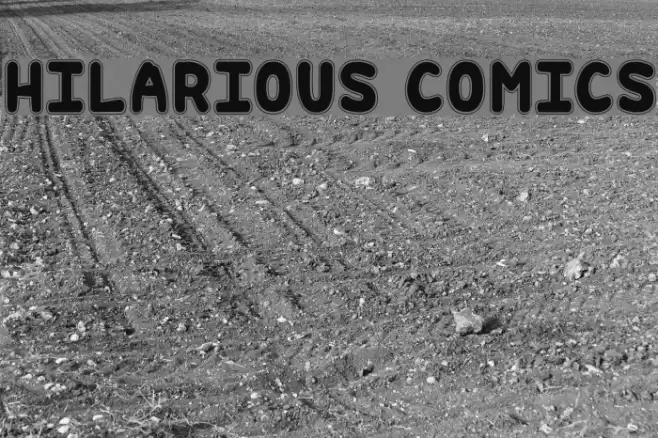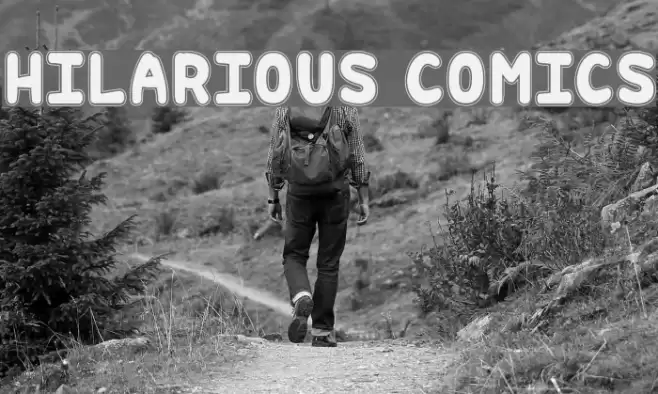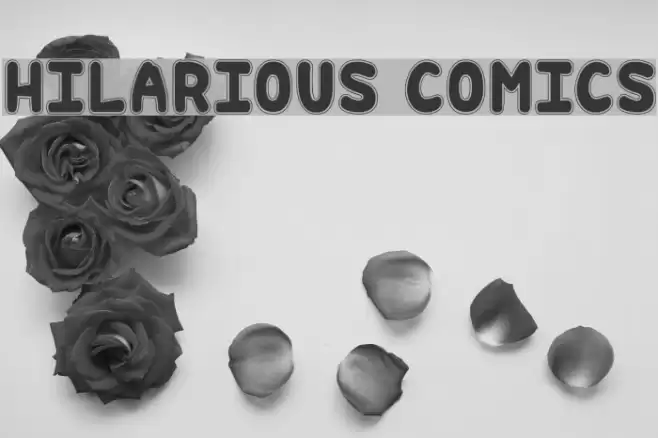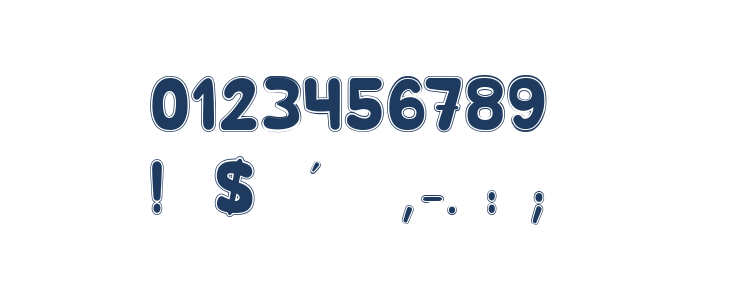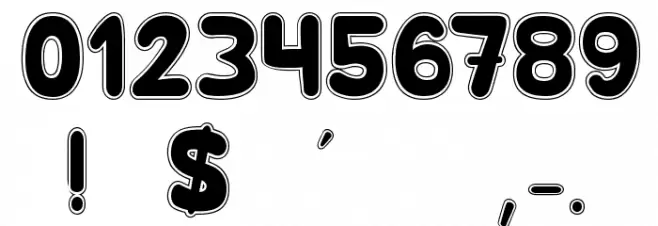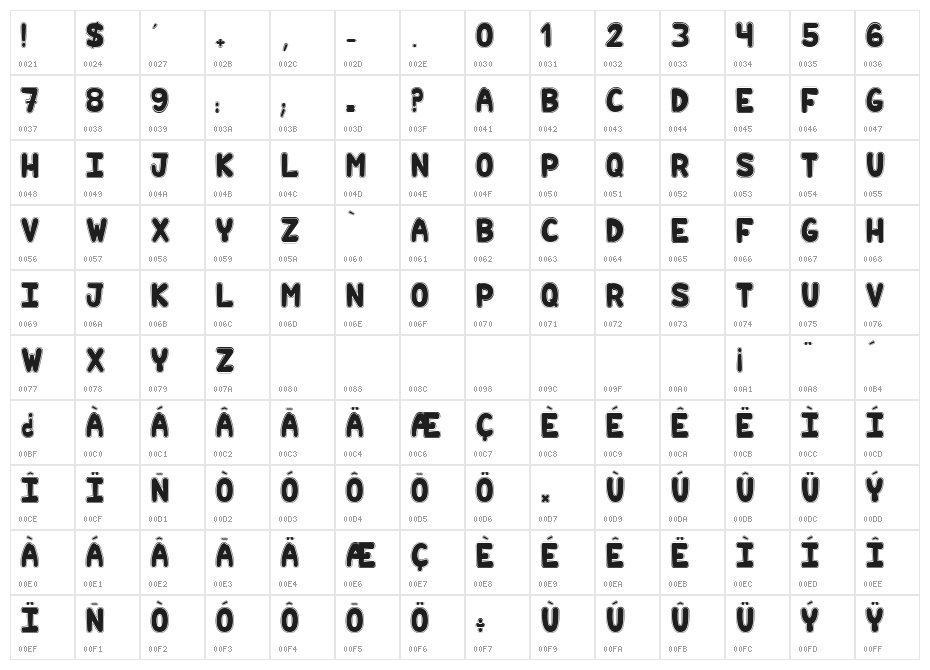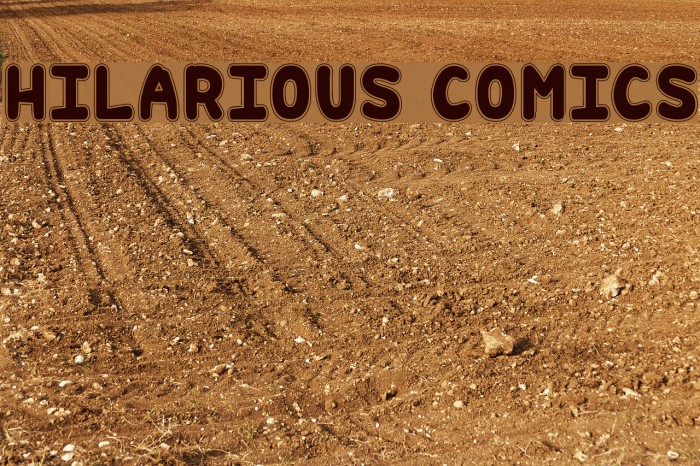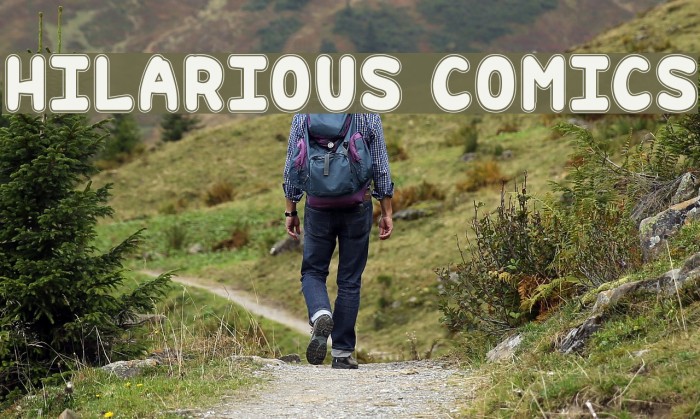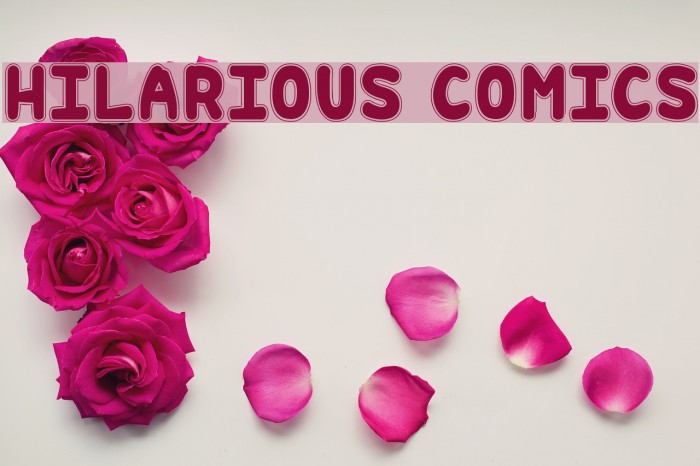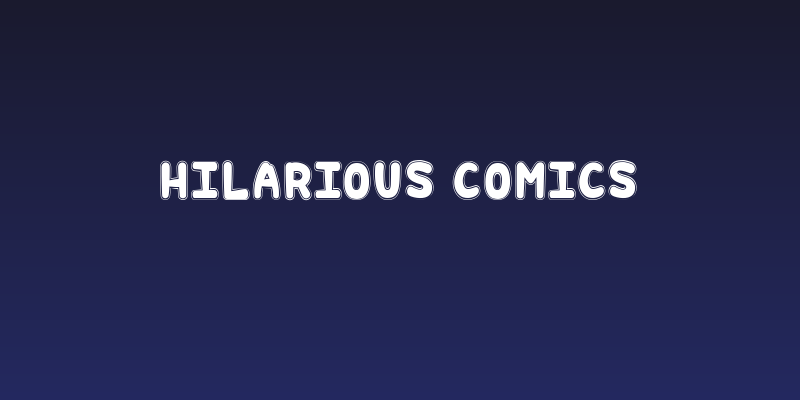
Hilarious Comics Font
Hilarious Comics Description
This playful and bold font features a thick, rounded style with a prominent black outline that gives each character a cartoonish and lively appearance. The letters are uniformly bold, with a consistent stroke width that maintains a sense of balance and harmony across the alphabet. The font's design is characterized by its smooth curves and slightly exaggerated proportions, which contribute to its whimsical and fun aesthetic. The numbers and special characters follow the same design principles, ensuring a cohesive look throughout. This font is ideal for projects that require a touch of humor and creativity, such as comic books, children's books, or playful branding.
A bold, playful font with rounded characters and a cartoonish outline from Uncategorized fonts.
- Font: Hilarious Comics
- Proposed Projects: Comic books, children's books, playful branding, posters, and merchandise.
- Overall Style: Playful, Cartoonish